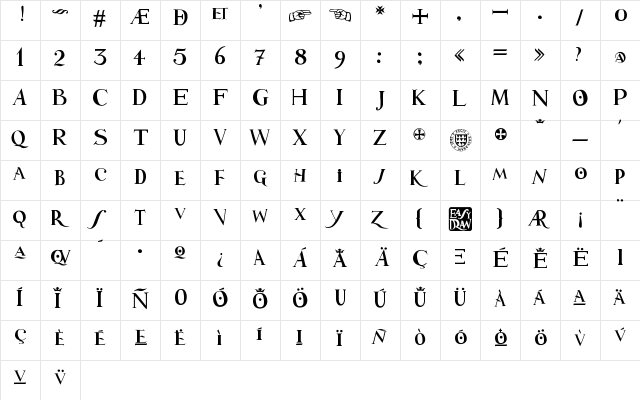
1645 Old Spanish Regular
| Foundry | easydraw |
| Designer | easydraw |
Design Context for 1645 Old Spanish Typeface
1645 Old Spanish offers clean, dependable letterforms without strong stylistic allegiance, making it a practical choice for designers who need flexibility.